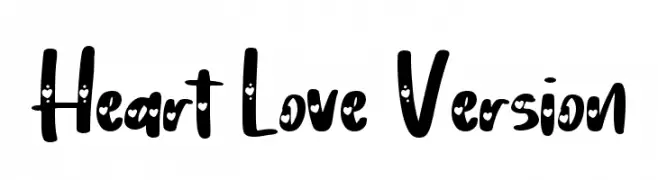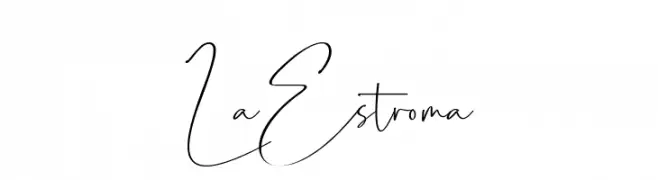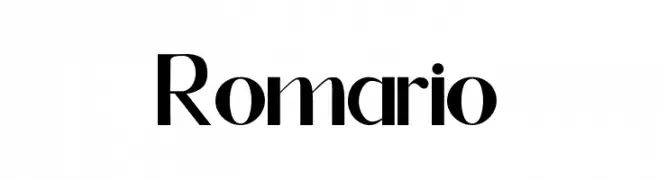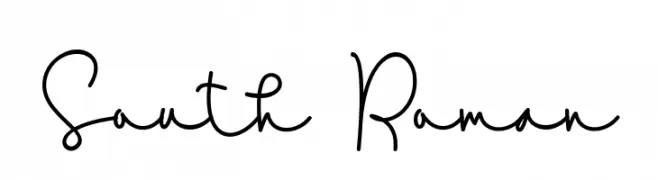
A playful and whimsical script font with interconnected letters and a charming looped design.
A playful, handwritten font with tall, narrow letters and a whimsical style.
A romantic and sophisticated script font with flowing, cursive letters and ornate flourishes.
A delicate handwritten font with thin, flowing lines and elegant curves.
A playful, heart-embellished decorative font with bold, rounded characters.
A bold, heart-adorned decorative font with a playful and romantic style.
A modern, high-contrast font with elegant and stylish characters.
A graceful script font with flowing, cursive strokes and elegant curves.
A playful, bold font with rounded, thick strokes and a friendly appearance.
A bold, heart-themed decorative font perfect for romantic and playful designs.